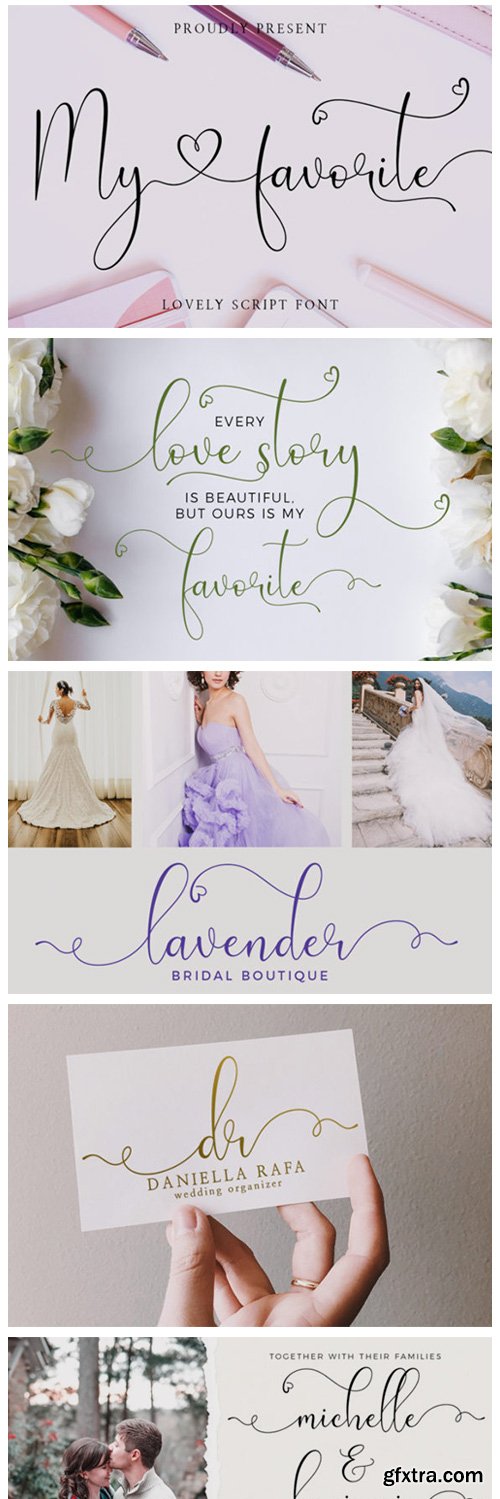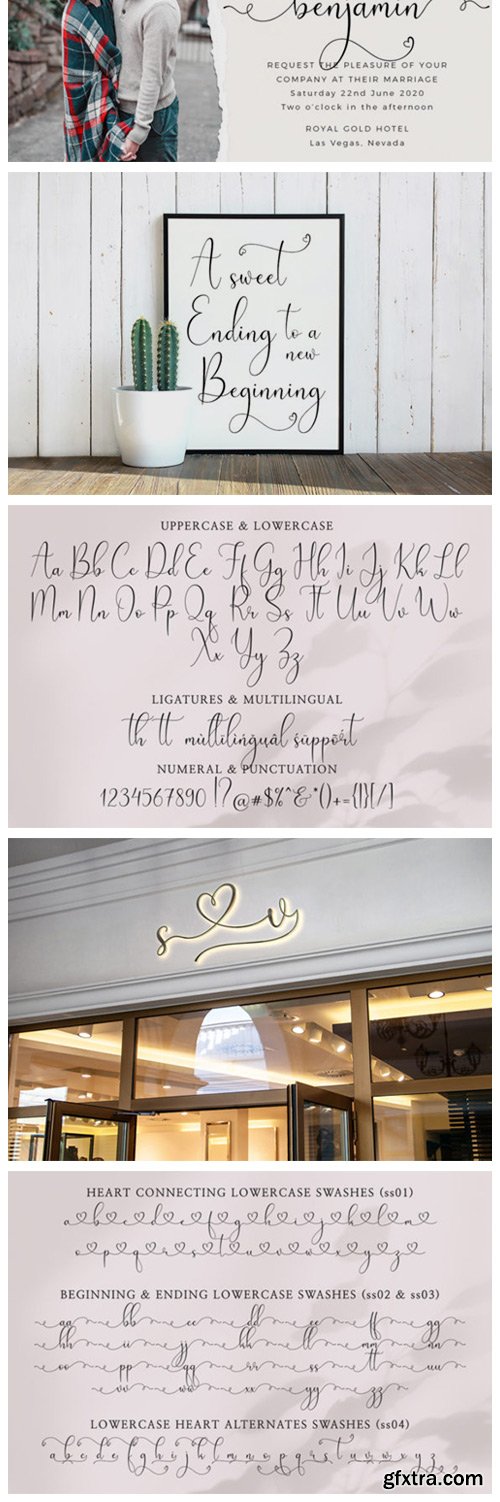
My Favorite Font
My Favorite is a tall and modern calligraphy font. It looks stunning on wedding invitations, thank you cards, quotes, greeting cards, logos, business cards and every other design which needs a handwritten touch. This font is PUA encoded which means you can access all of the glyphs and swashes with ease!